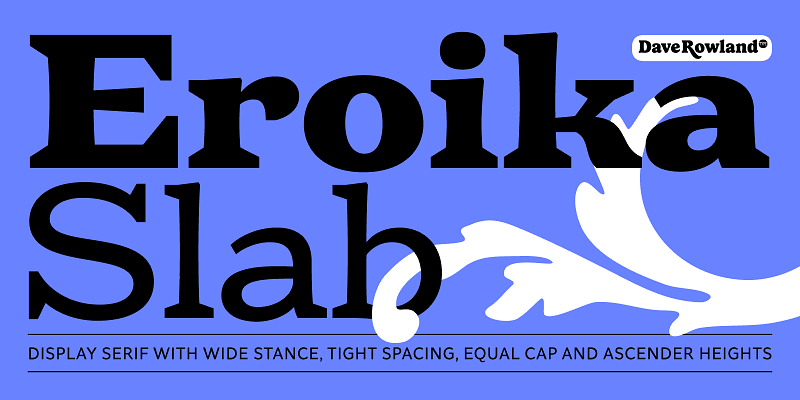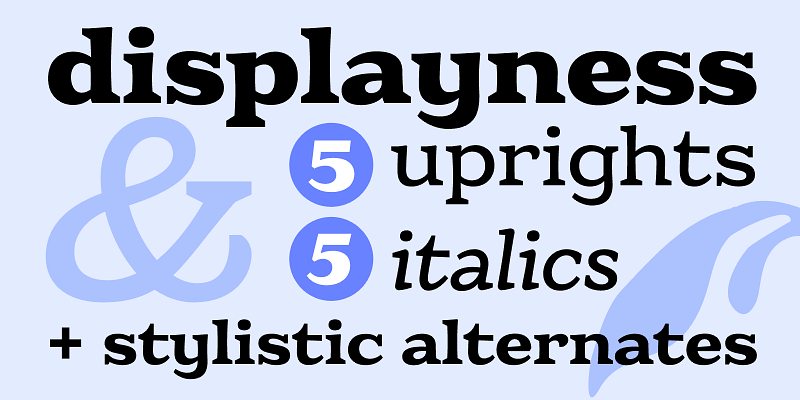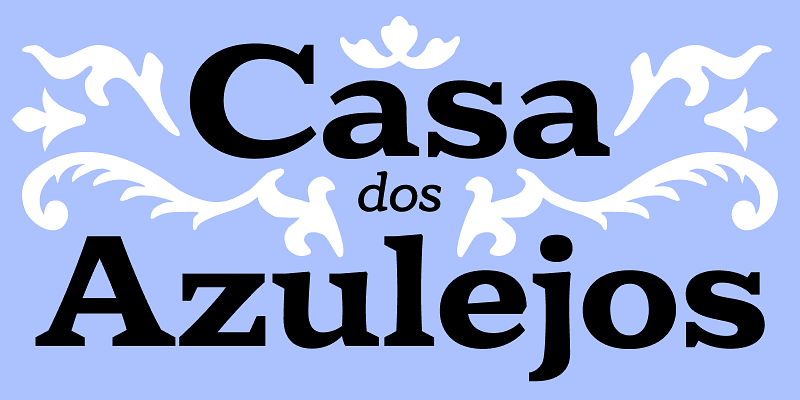
Eroika Slab is a robust display serif intended to be set large. Eroika’s “displayness” stems from its wide stance, tight spacing, equal cap and ascender heights, flared stems, and large x-height. The italics, in particular, are quite unorthodox, with their vertical serif cut-offs and foot serifs where most fear to tread (’scuse the pun). Perfect for book covers, craft beer logos, boxing paraphernalia, and tattoo magazine pull quotes. And probably a whole lot more besides!